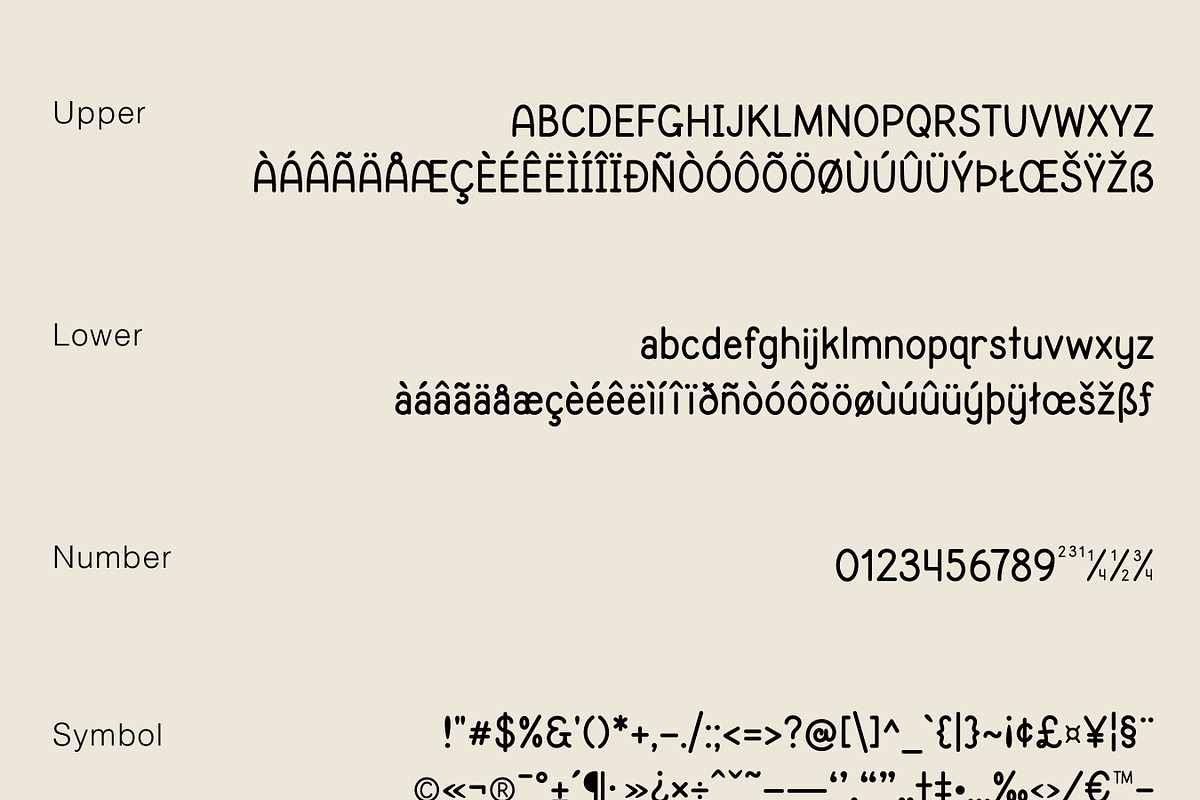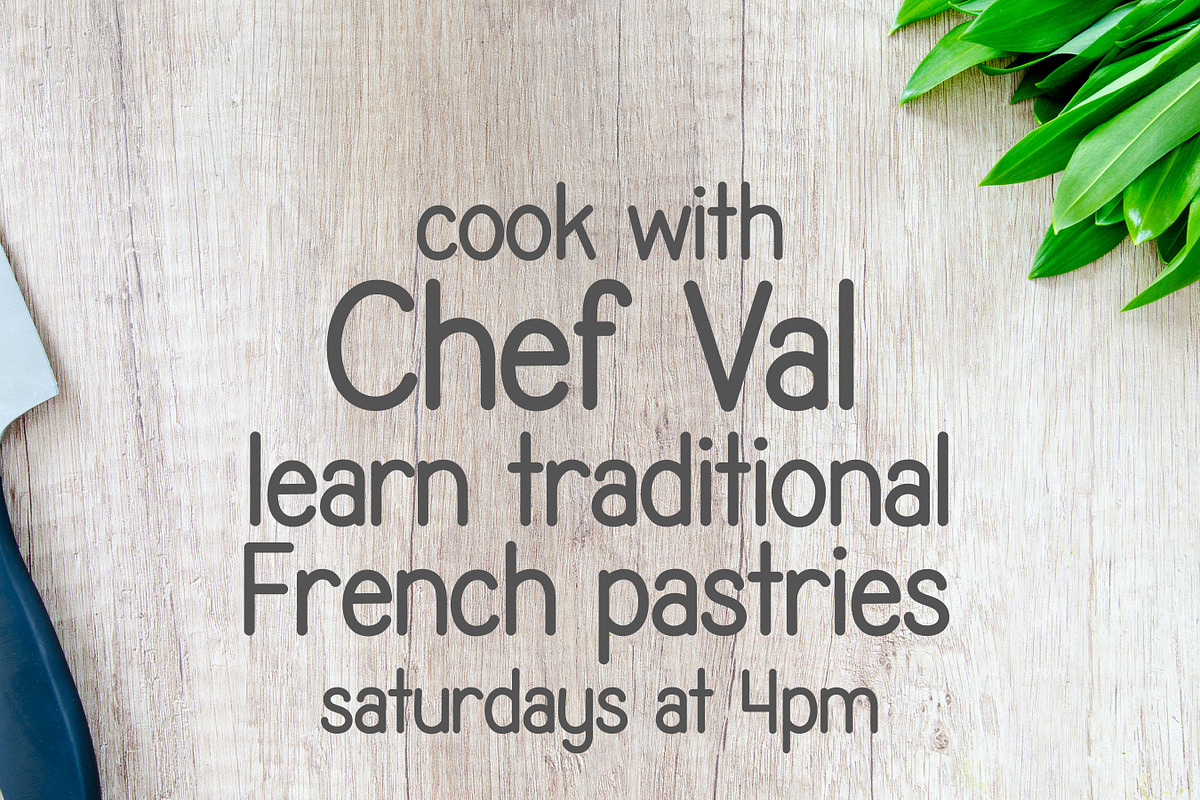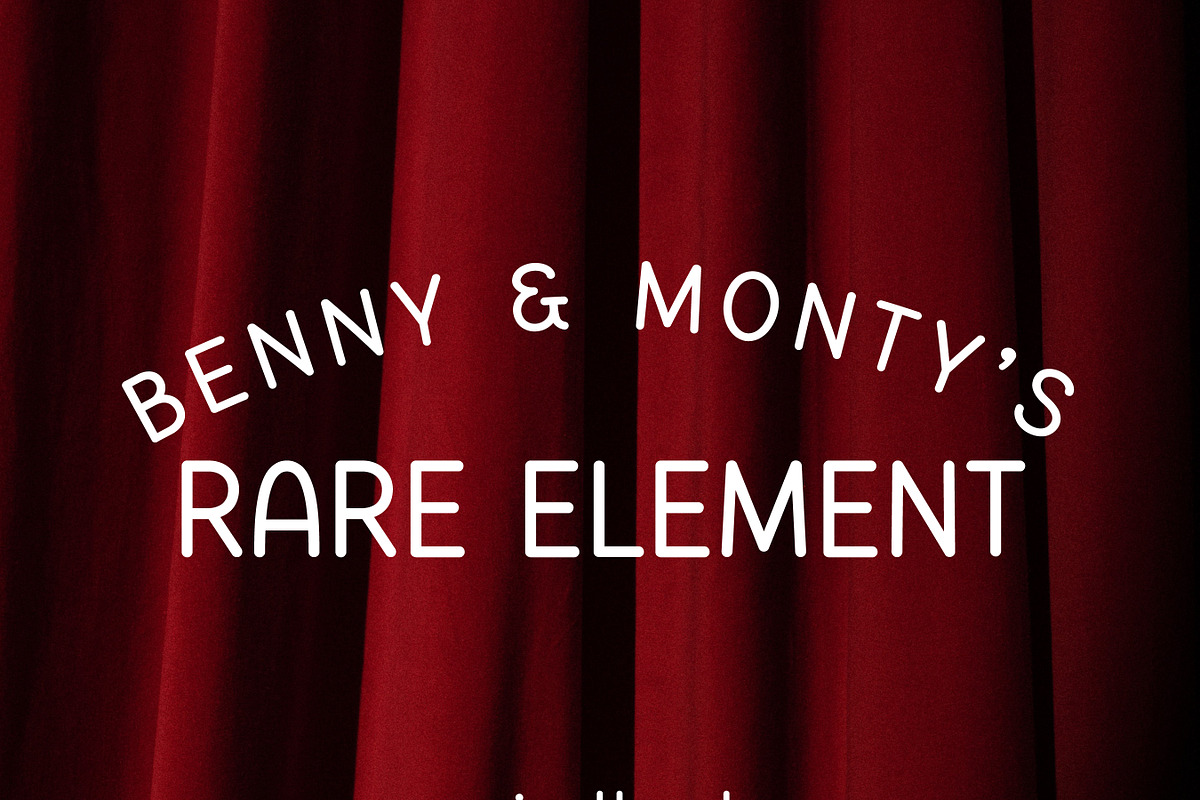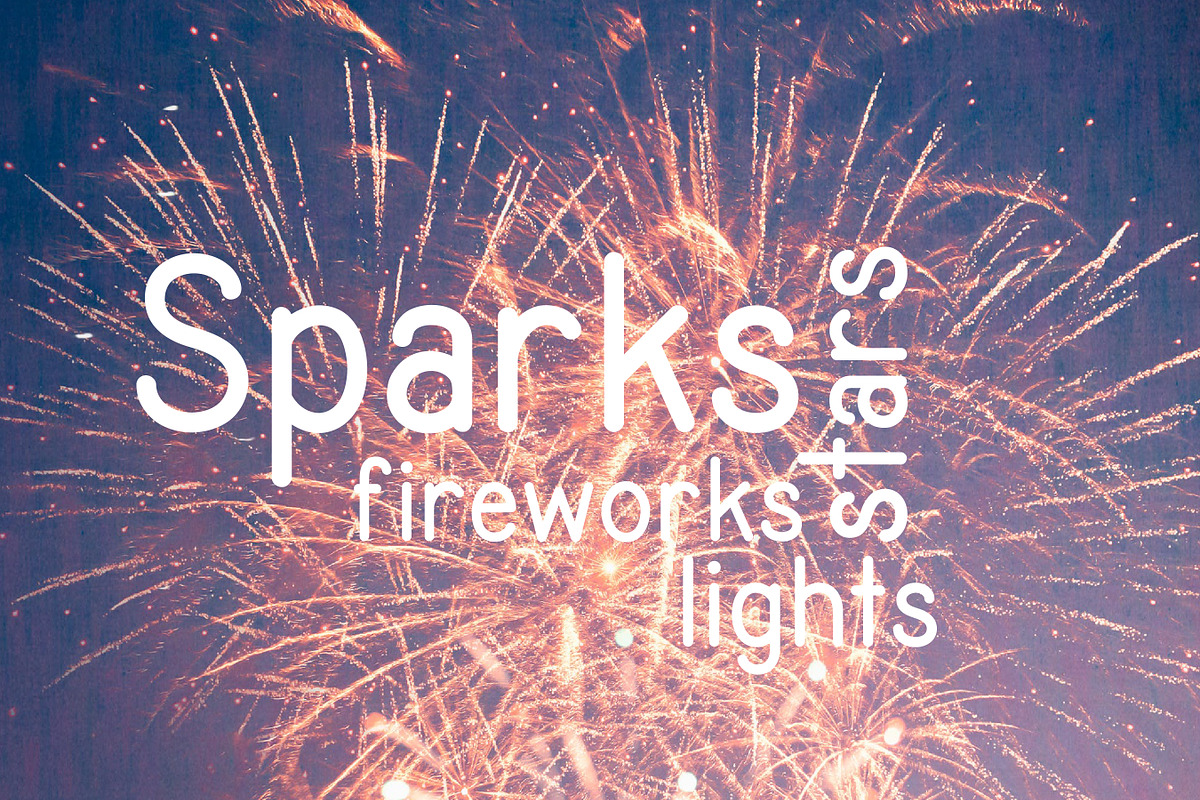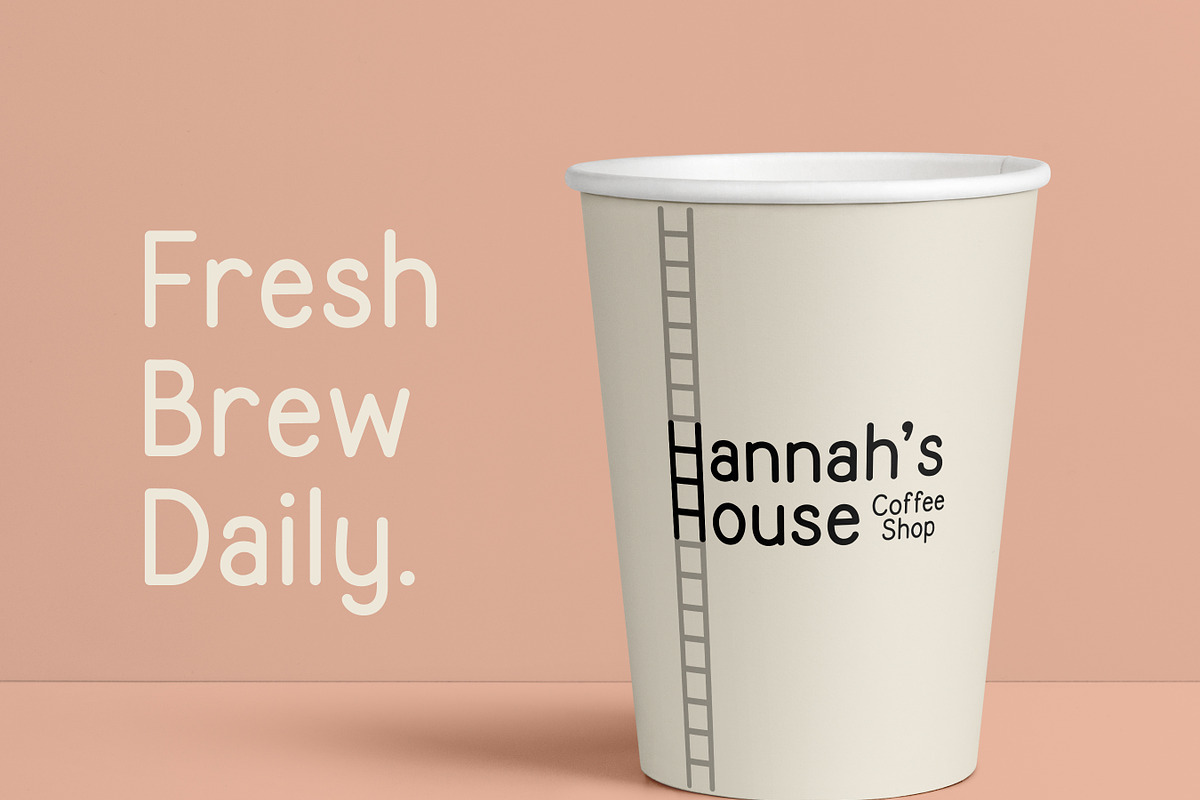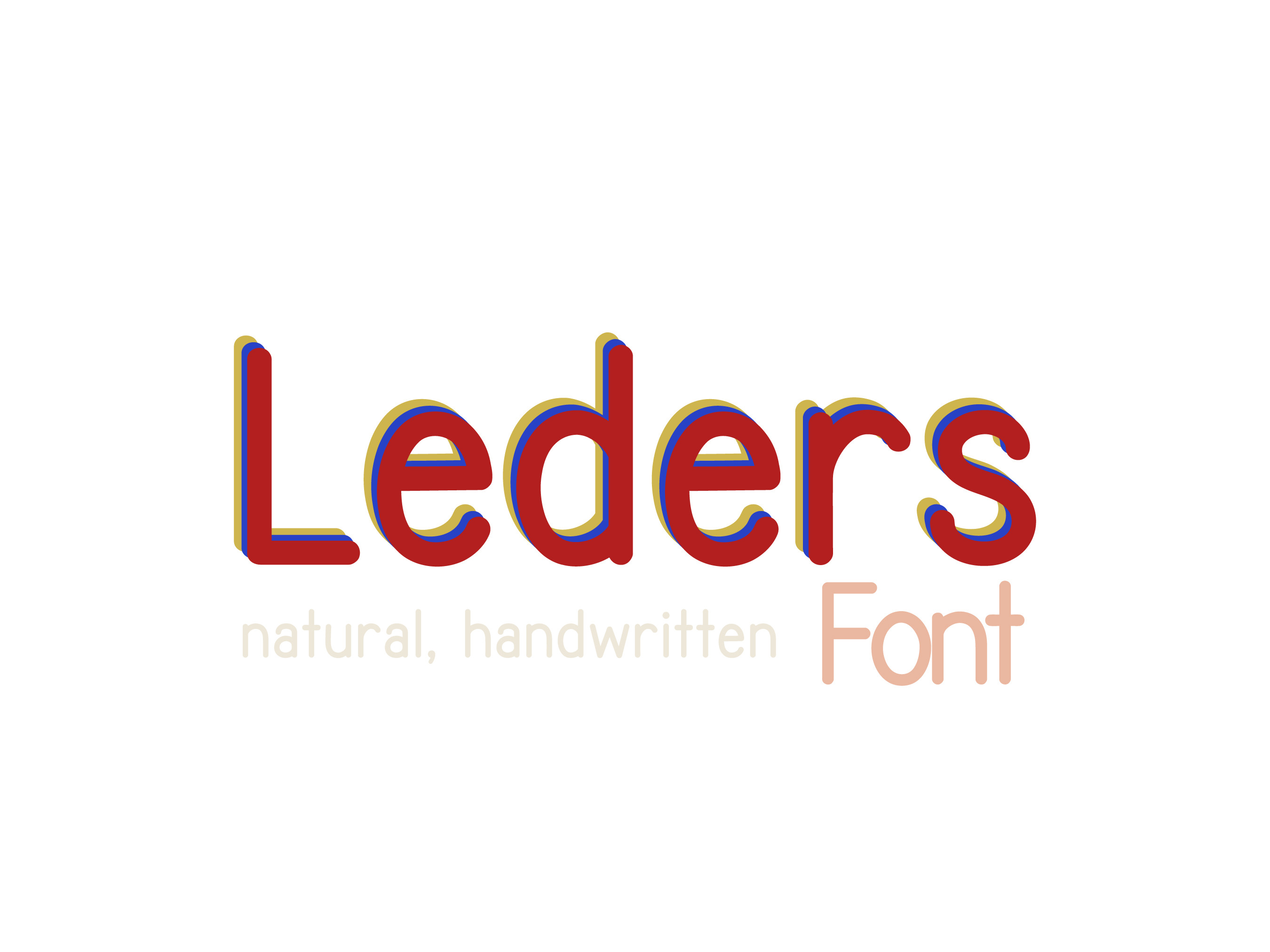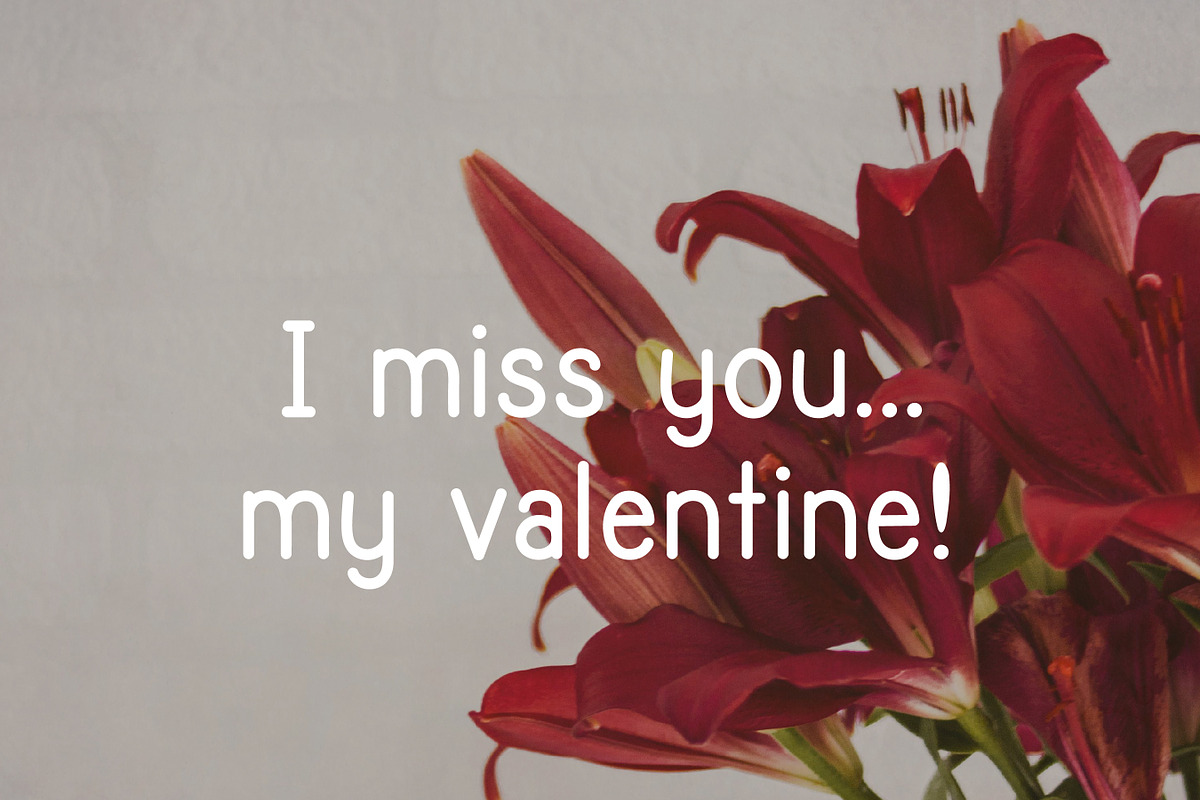
Leders Font
Leders is a natural handwritten font structured for legibility and clarity. It features soft glyphs in a monoline style that’s perfect for labeling or even for home organization.
Great for branding, crafting, display font, wall art, handcrafted, hand written, handwritten, digital planner, and so much more.